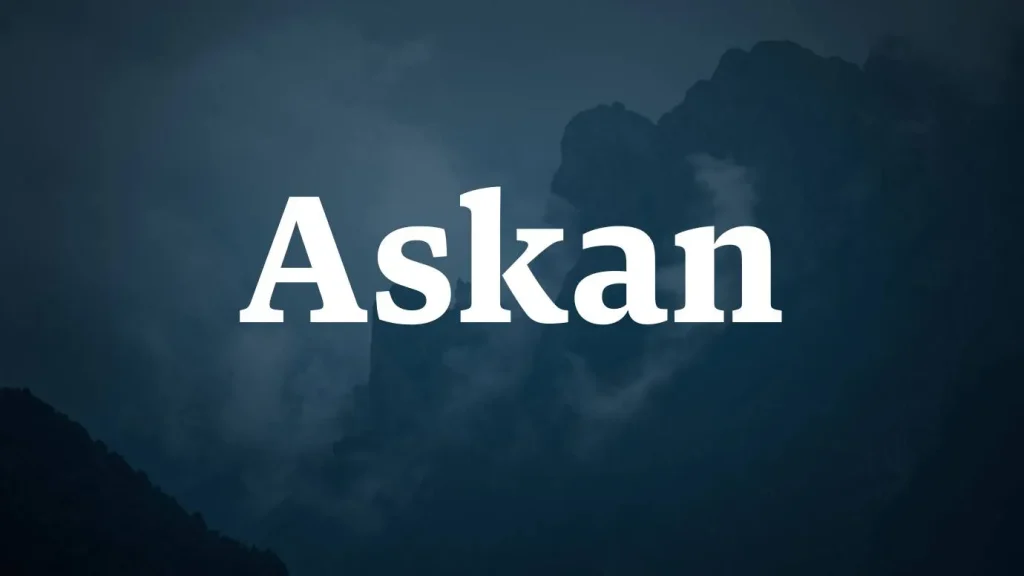
Dieter Hofrichter designed the attractive serif design. Askan Font is a nice text style that has thick alphabetical letters. It can be added extra fun into any design and it is ideal for creating a feel of wonder. The text style has also a free version.
Askan Font Usages
This typeface's significance is growing every single day. If you work as a designer professionally, you can create posters, flyers, banner advertisements, and much more by using it. Your designs will look more professional and beautiful when you pair this style with any similar typeface.
Additionally, a wide range of graphic creations, including logos, branding, marriage cards, post cards, and much more, can be created by using this lovely typeface. Your designs will have a specific elegance in result. For creating social media posts this style works best.
Aesthetic Feel of Askan Font
This typeface is appropriate for use in article design, resume design, text overlay design, and movie trailer design. This typeface can be used to create designs for writing, notes, and invoices, among other things.
It is ideal for creating designs for resumes, articles, and high-quality paperwork. The typeface can be used to create card designs, trademark designs, and clothing designs.
The design has many uses such as label design, social media post designs, T-shirt designs, and product packaging design.
This typeface has a beautiful appearance. You can use this typeface for your websites to create beautiful and stunning designs for the viewer.